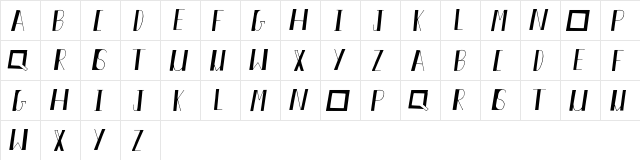
Akiva Regular
Design Context for Akiva Typeface
Akiva is a composed and adaptable typeface that performs quietly and consistently across a wide range of design contexts.